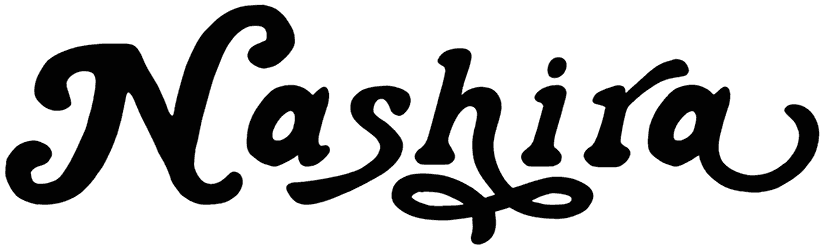
Nashira Font
When it comes to serif fonts, Nashira is one of the best options that you can get. There are a variety of areas in which this bold and rounded edges antique font comes really handy, like magazines, posters, websites, business cards, etc.